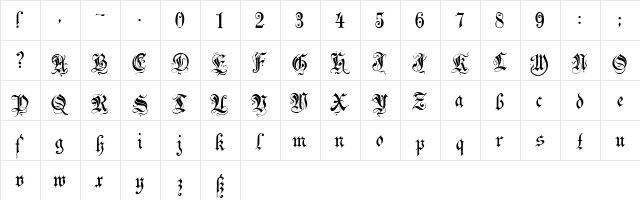
Zenda Regular
| Designer | PJL |
Design Context for Zenda Typeface
Zenda is a composed and adaptable typeface that performs quietly and consistently across a wide range of design contexts.